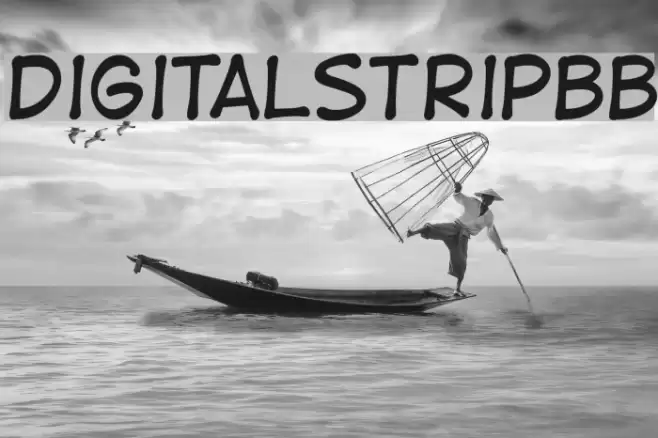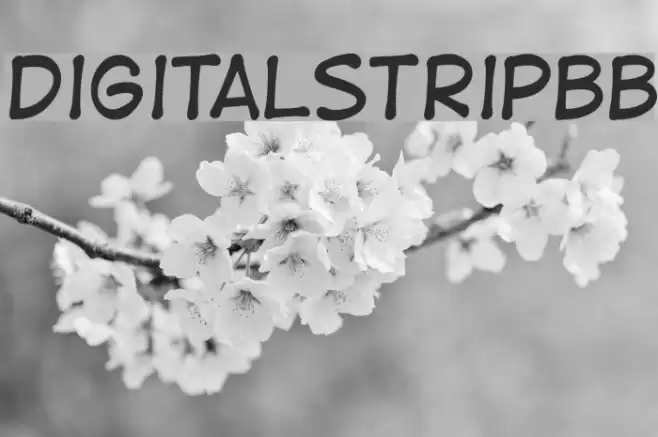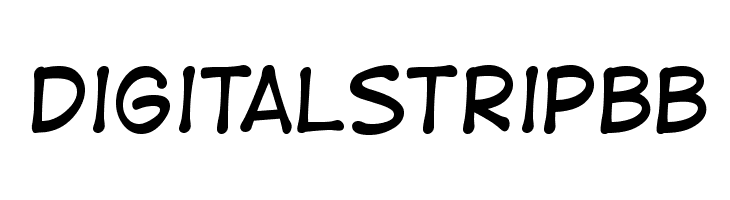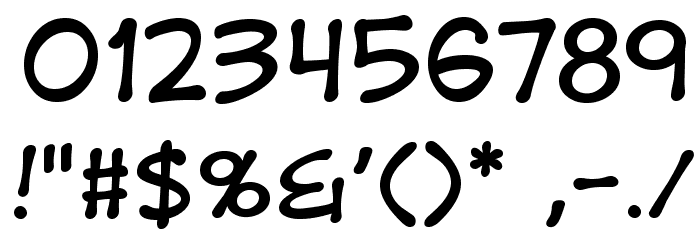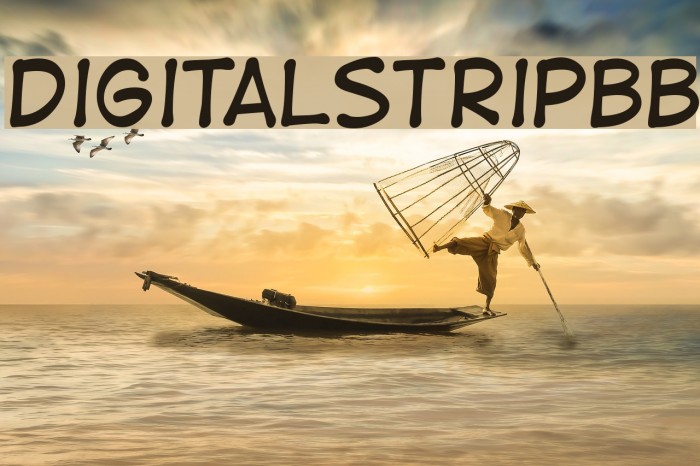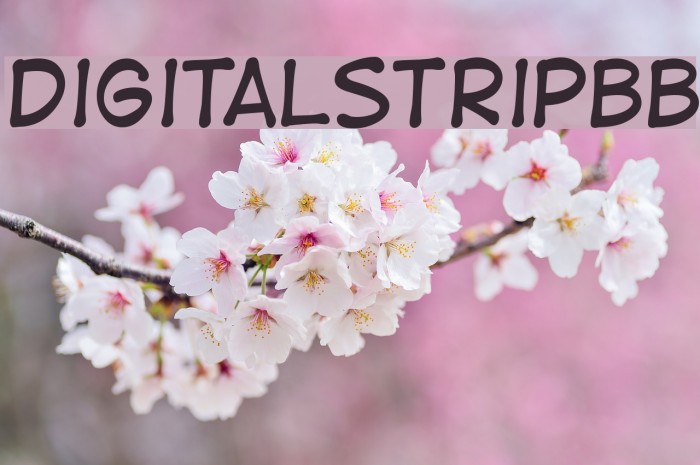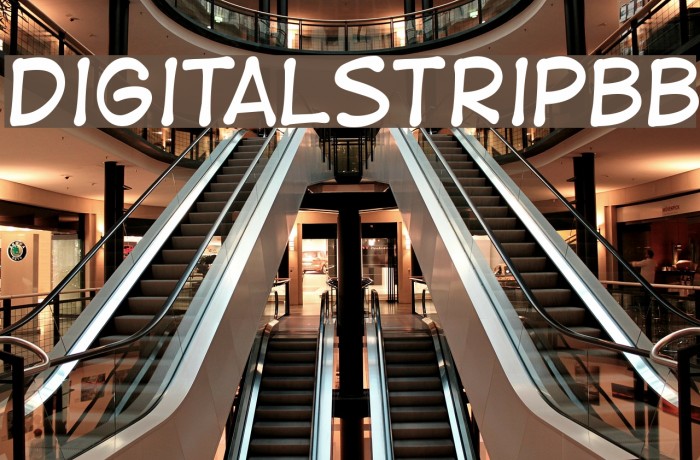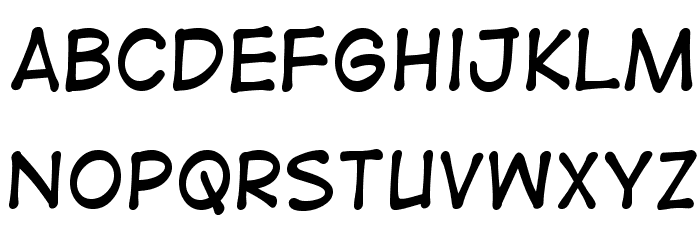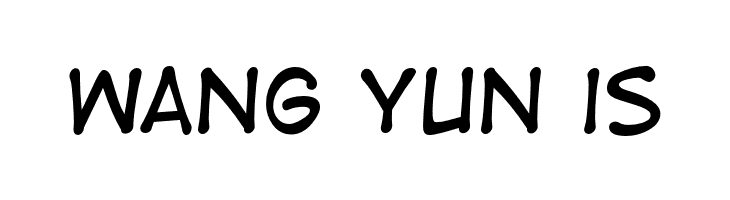
DigitalStripBB Font
DigitalStripBB Description
This font features a playful and casual handwritten style, characterized by its rounded and slightly irregular letterforms. The strokes are consistent in thickness, giving it a uniform appearance while maintaining a friendly and approachable vibe. The characters are well-spaced, ensuring readability, and the overall design exudes a sense of informality and creativity. The font includes a full set of uppercase and lowercase letters, numerals, and a variety of special characters, making it versatile for different uses. Its unique style makes it suitable for projects that require a personal touch or a fun, engaging look.
A playful, handwritten font with rounded, consistent strokes and a casual vibe from Uncategorized fonts.
- Proposed Projects: Ideal for comic strips, children's books, greeting cards, and informal branding.
- Overall Style: Casual
- Use Case: Headlines, Informal text, Creative projects